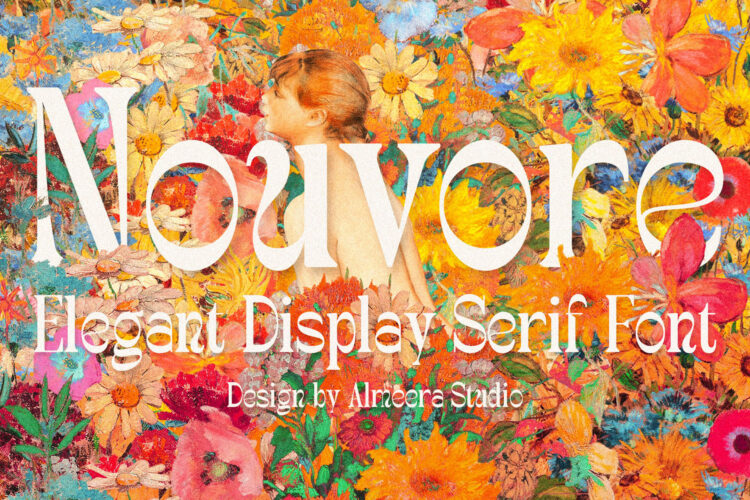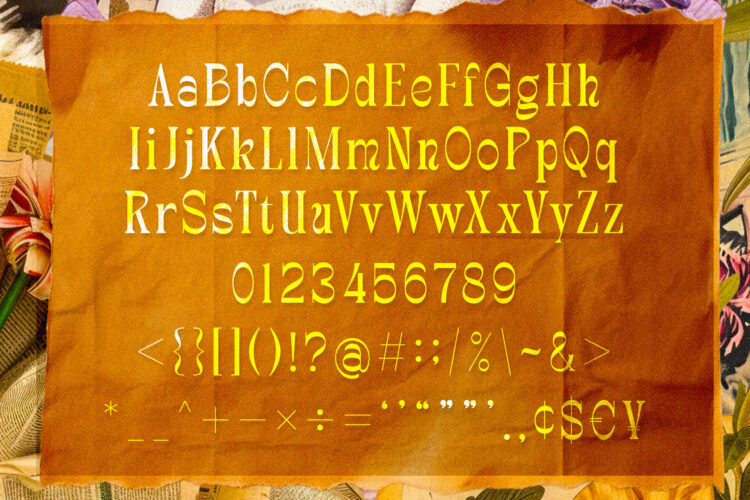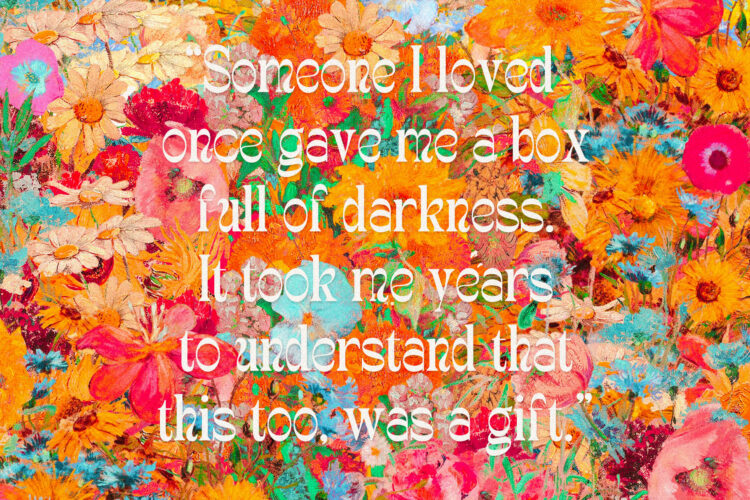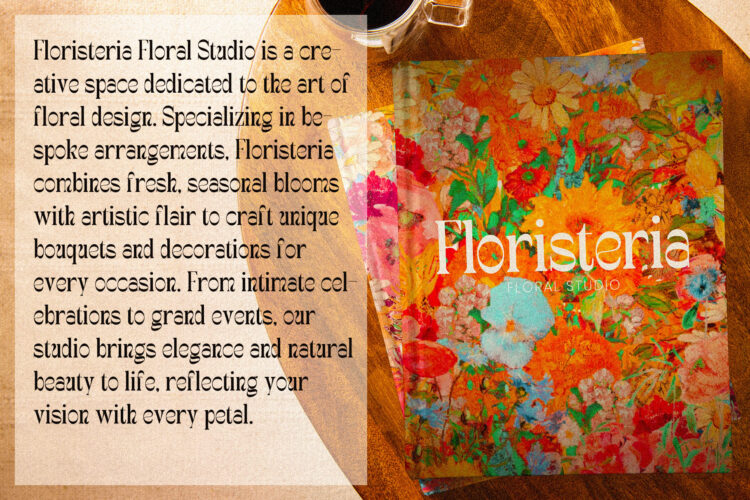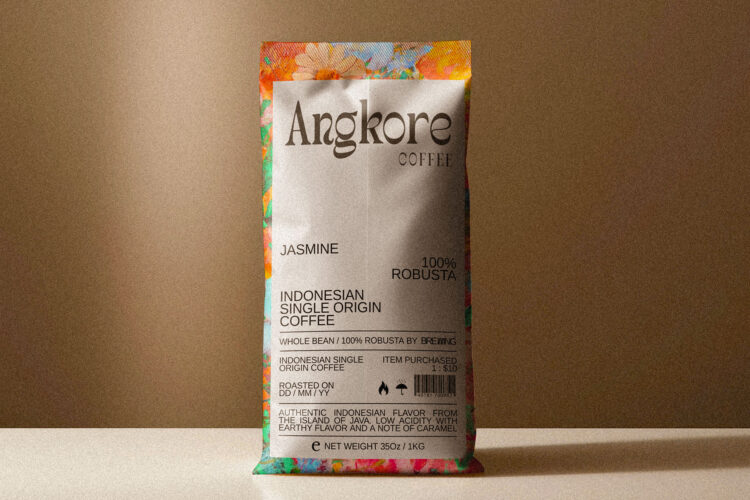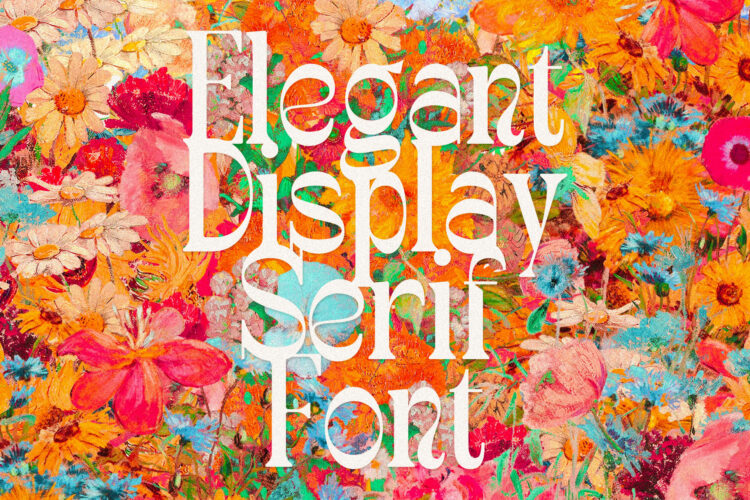
Introducing Nouvore – Elegant Display Serif Font. Nouvore is a display and simple serif font, This type of font is very suitable for your various needs such as branding projects, logos, social media posts, advertisements, labels, product packaging, photography, wedding designs, watermarks, invitation product designs, stationery, and any project.
Nouvore – Elegant Display Serif